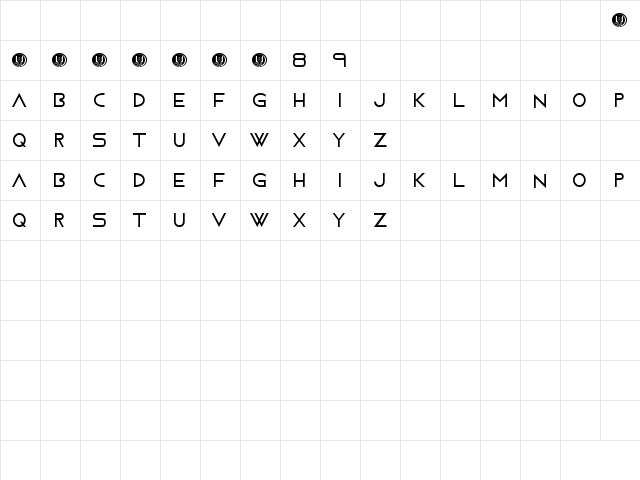
Moving Forward Regular
| Foundry | LJ-Design Studios |
| Designer | Luis Jaramillo |
Design Context for Moving Forward Typeface
Moving Forward is a composed and adaptable typeface that performs quietly and consistently across a wide range of design contexts.